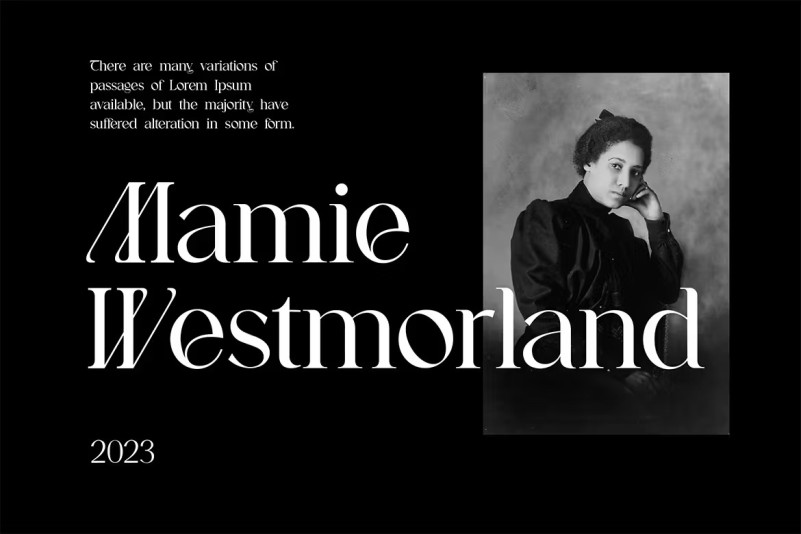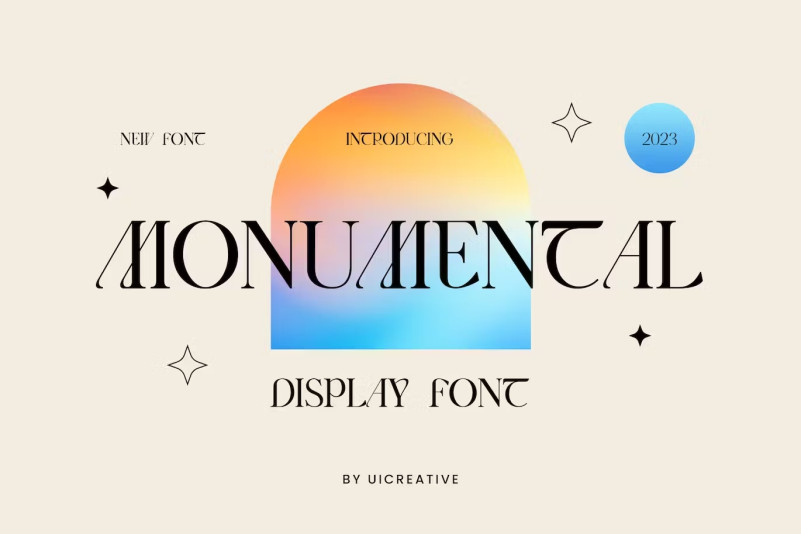
Monumental Font
Monumental Font – Modern Serif Display Font . A modern Serif font that gives an impression of beauty, class, elegance and modernity. This font is perfect for a wide variety of projects, such as signature, stationery, logo, weddings, typographic quotes, magazine or book covers, website headers, apparel, branding, packaging design, etc. Additionally, fashion-related branding or editorial design exhibits both masculine and feminine qualities.